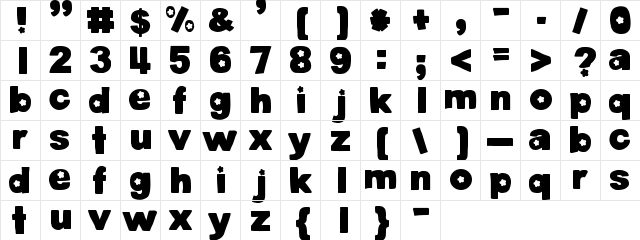
DJB Cutouts-Flowers Bold
| Designer | Darcy Baldwin (djbfontography) |
Design Context for DJB Cutouts-Flowers Typeface
DJB Cutouts-Flowers takes a measured approach to typography — its balanced proportions and neutral character make it a reliable workhorse for both digital and print work. Its bold stroke weight gives it real presence on the page.